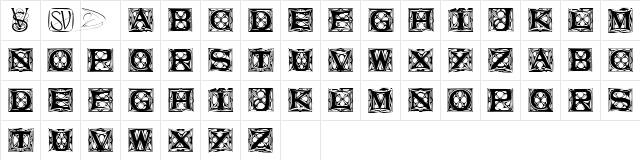
Varah Caps Regular Font Preview
Varah Caps Regular
Varah Caps Regular Font Details
Design Context for Varah Caps Typeface
Varah Caps is a composed and adaptable typeface that performs quietly and consistently across a wide range of design contexts.